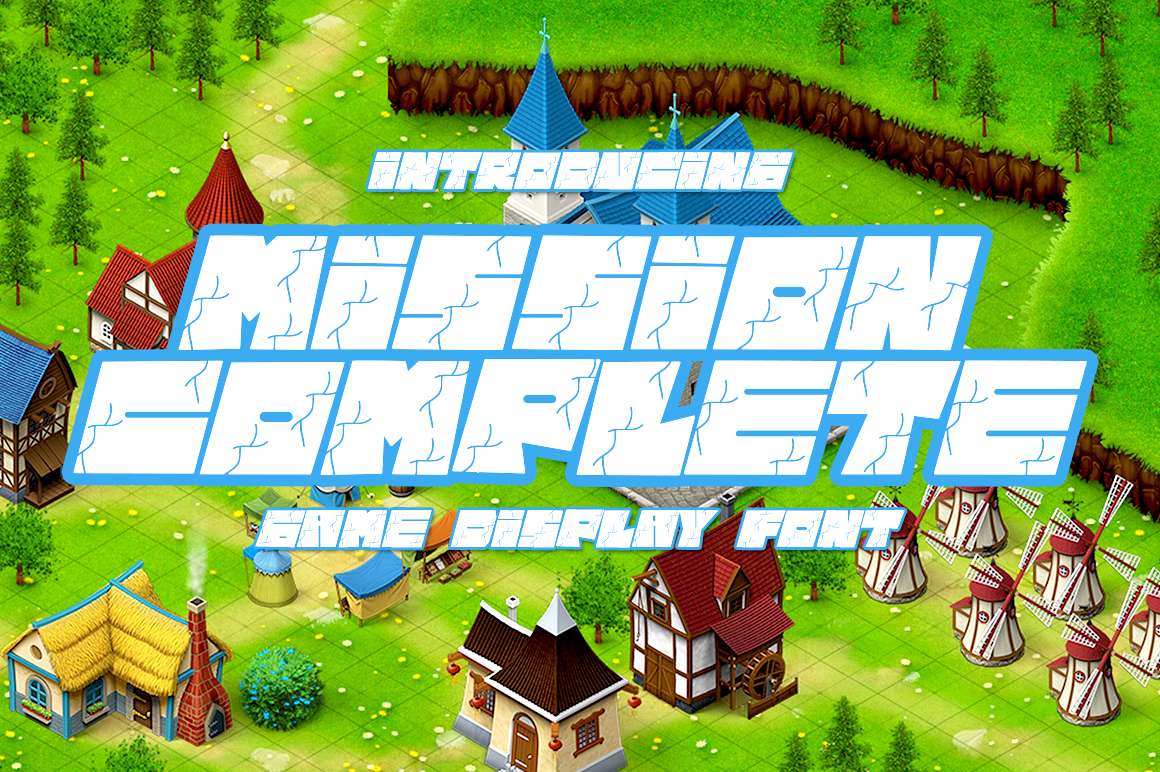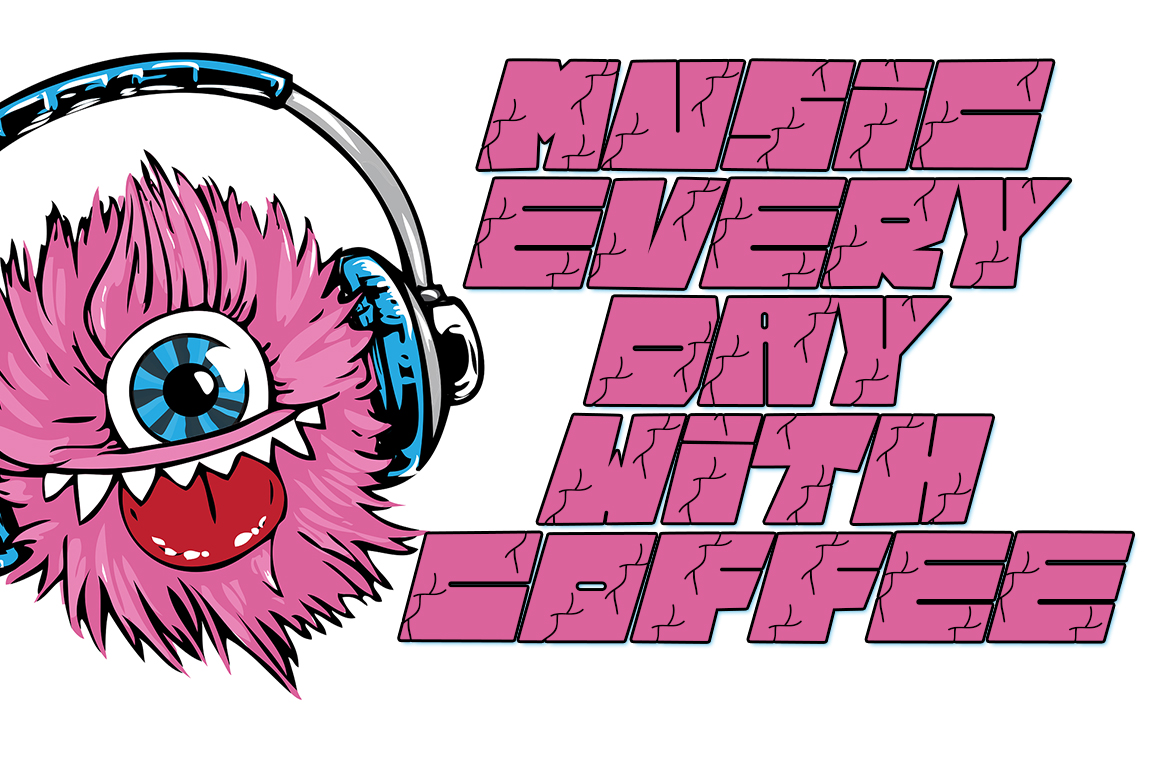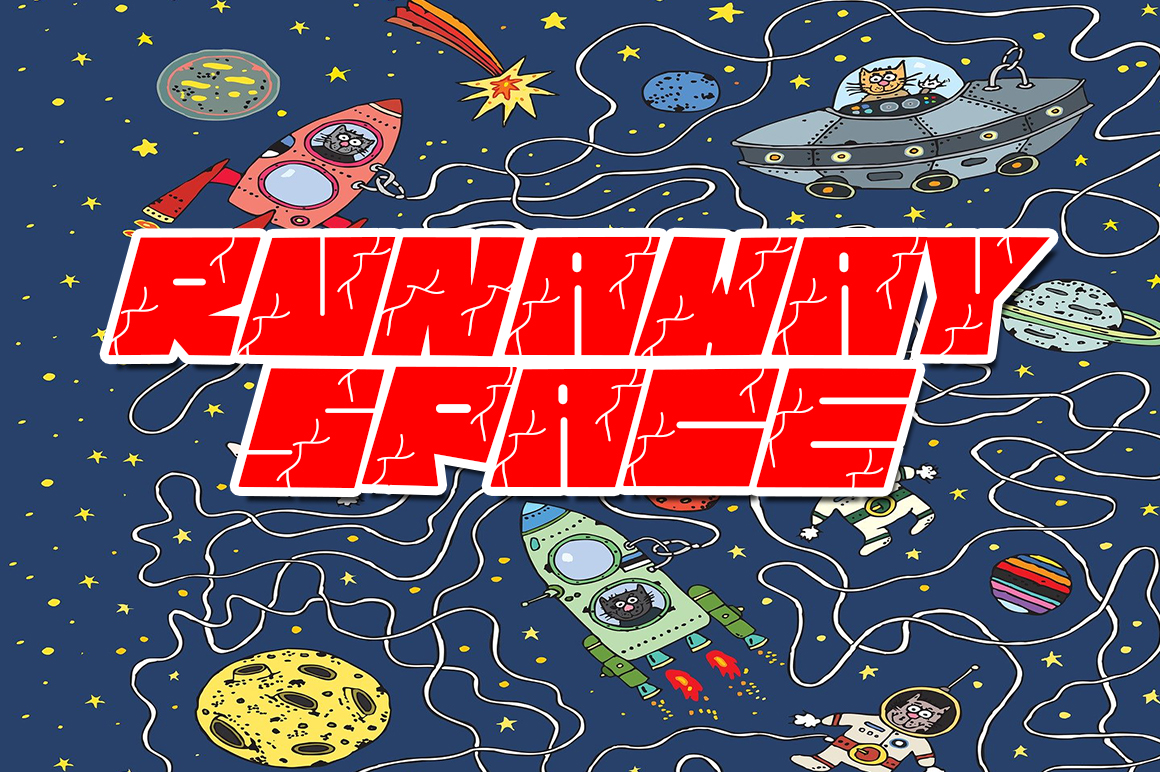
Mission Complete Font
Mission Complete Display Font
This is a daring and incredibly unique display font. Add this chunky lettered font to your designs and notice how it makes them come alive!